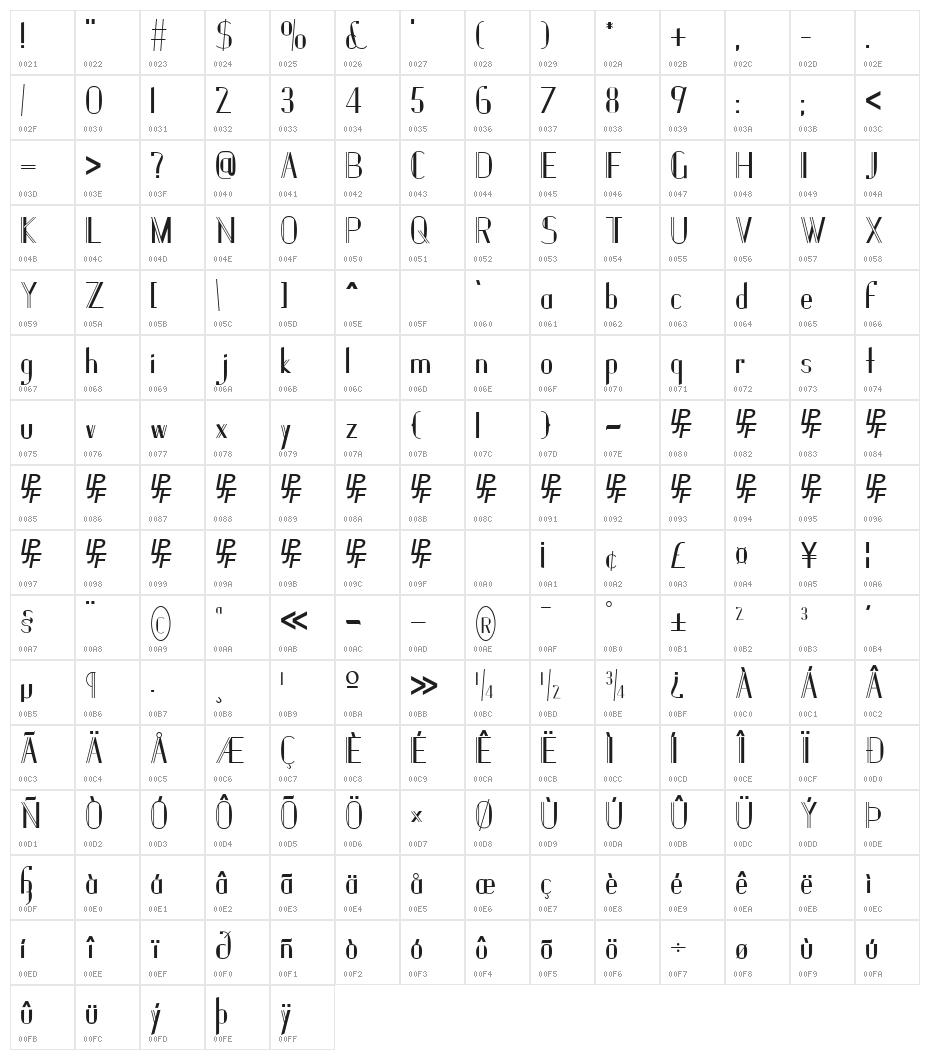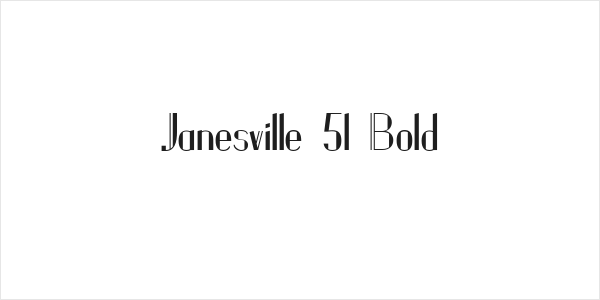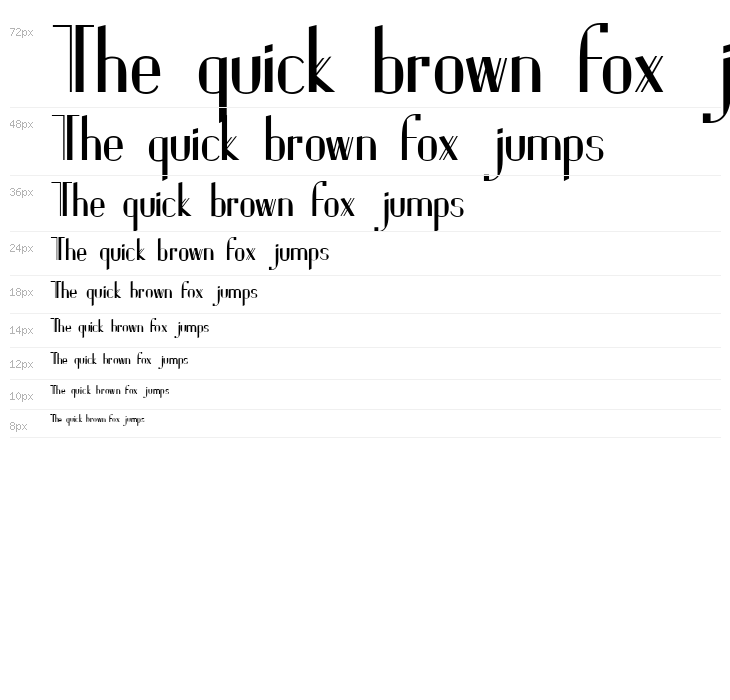
Janesville 51 Bold Font
Janesville 51 Bold Description
This font features a bold and striking design with a modern flair. The uppercase letters are tall and narrow, with a distinctive geometric style that incorporates sharp angles and clean lines. The lowercase letters maintain a similar aesthetic, offering a cohesive look across different text cases. Numbers are equally bold and consistent with the overall design, ensuring readability and visual impact. Special characters are uniquely styled, adding a touch of creativity to the font. The combination of thick and thin strokes creates a high contrast, enhancing the font's dynamic appearance.
Proposed ProjectsIdeal for branding, posters, headlines, and any project requiring a modern and impactful typeface.